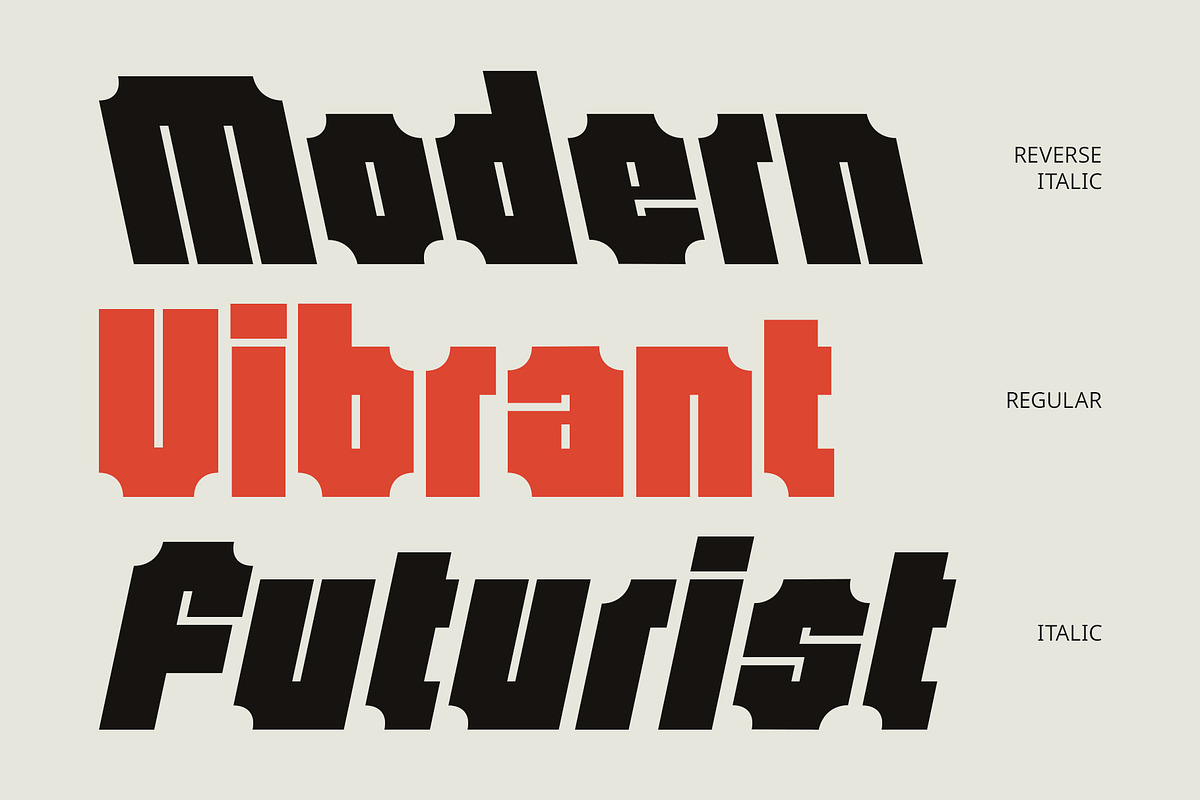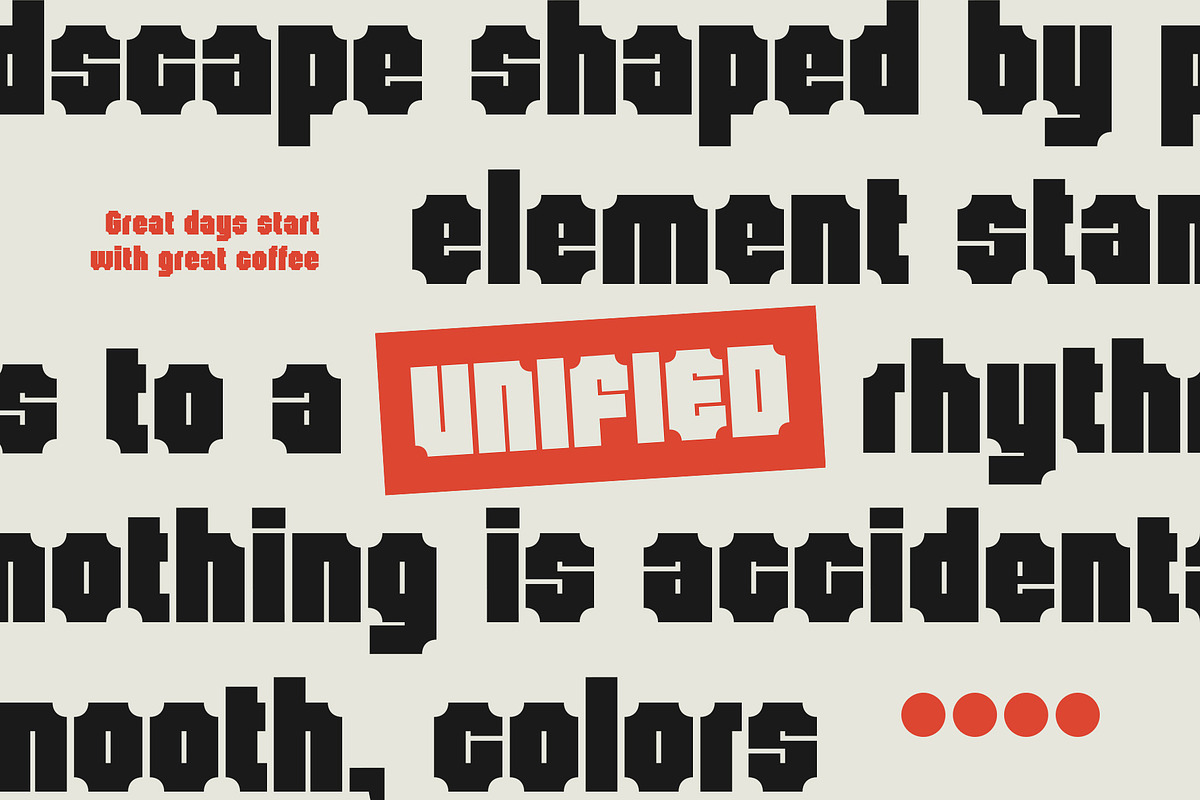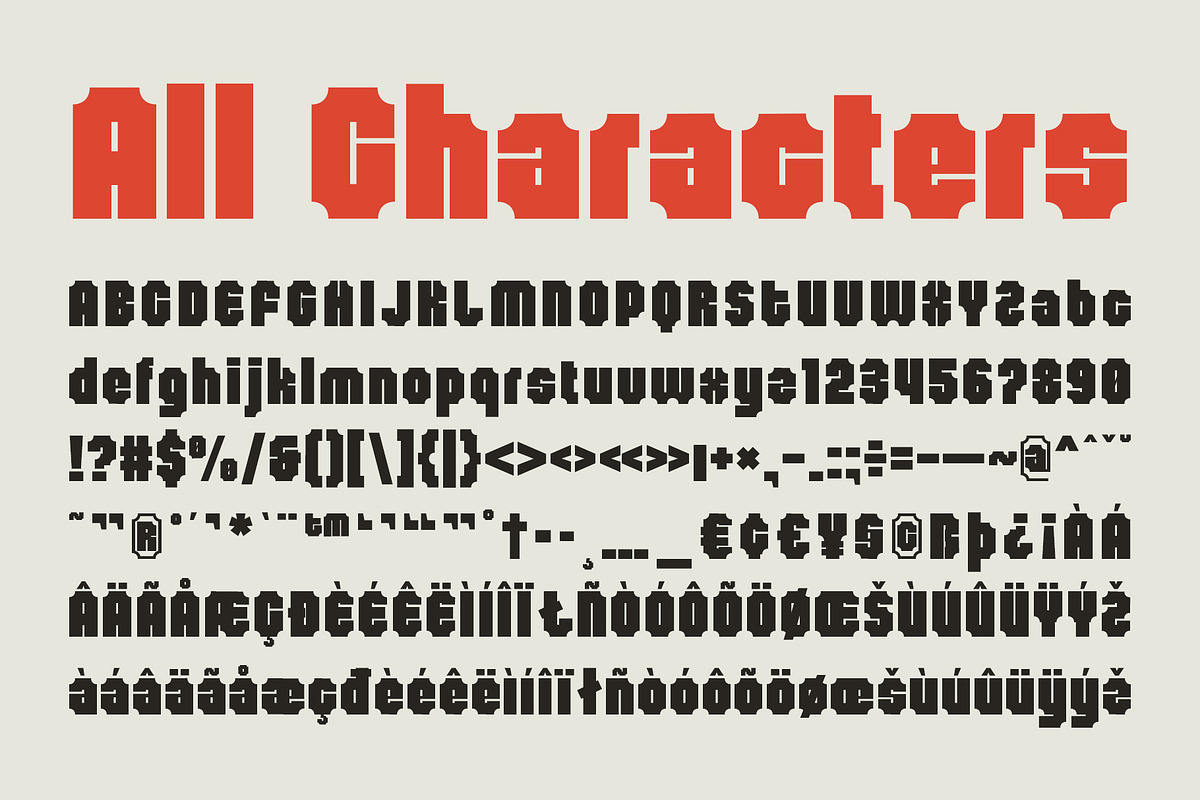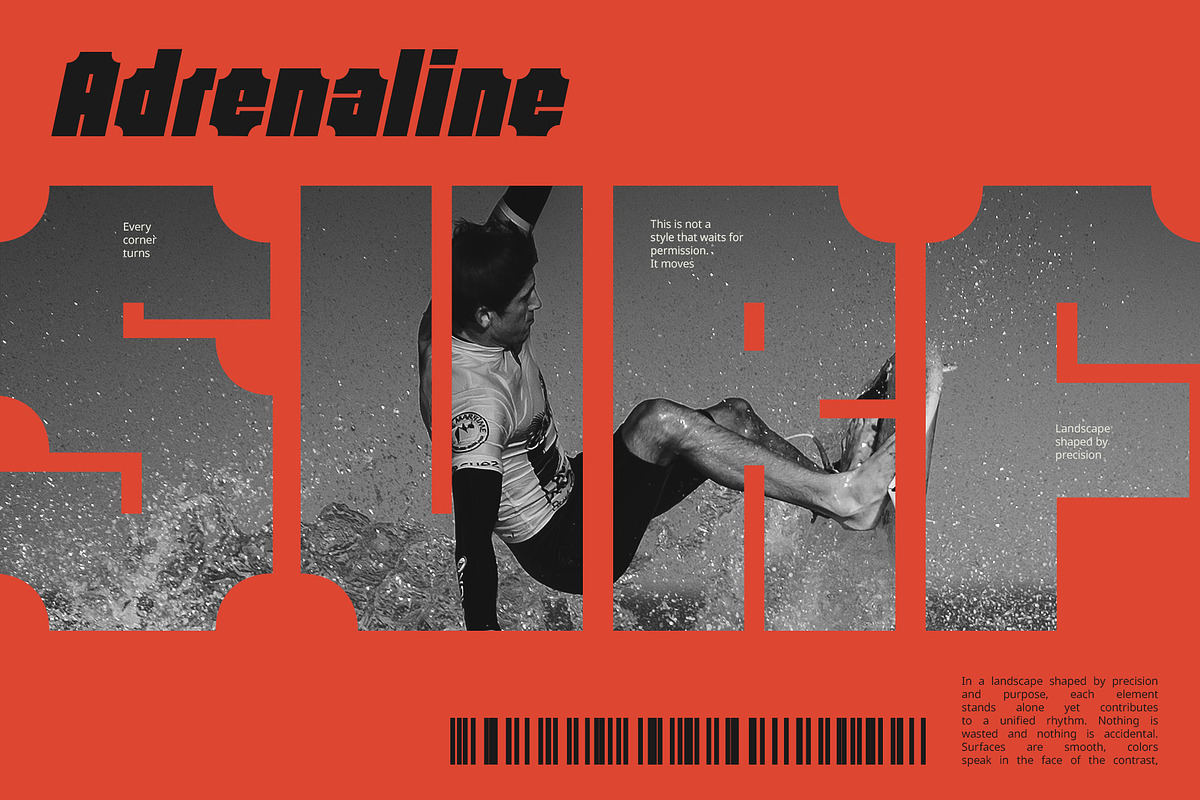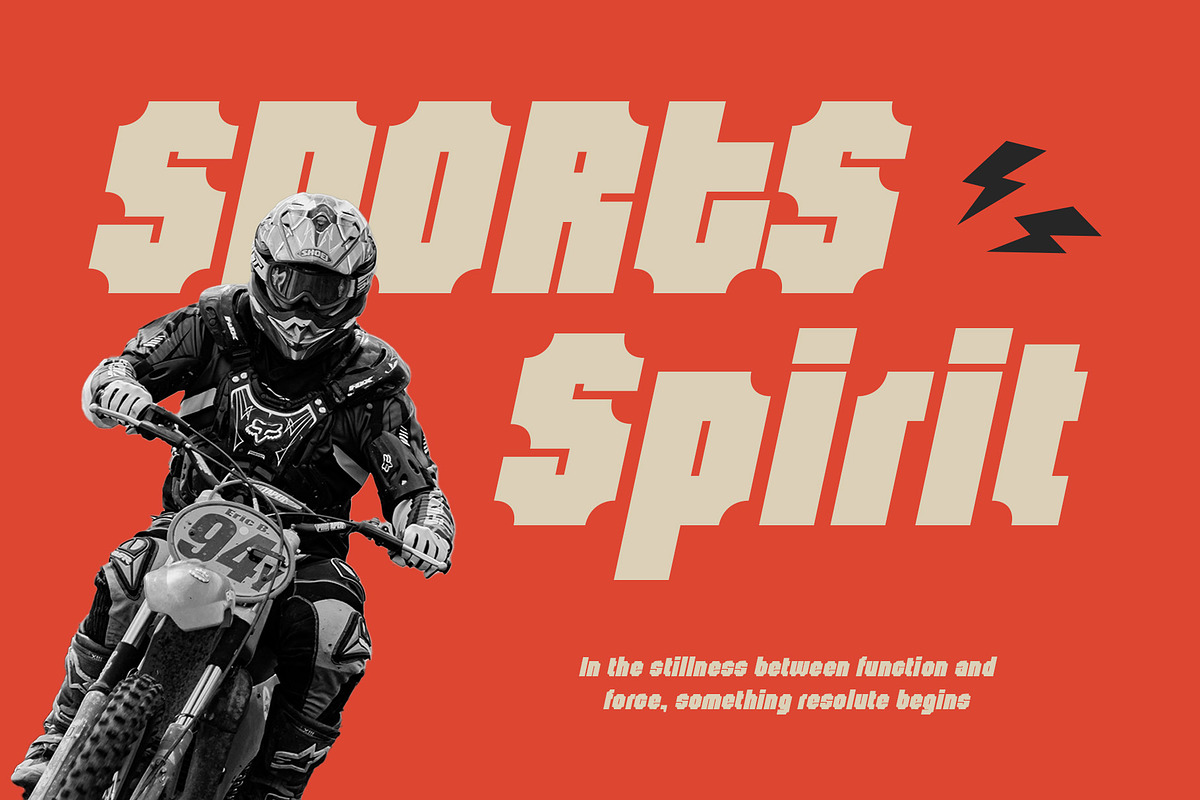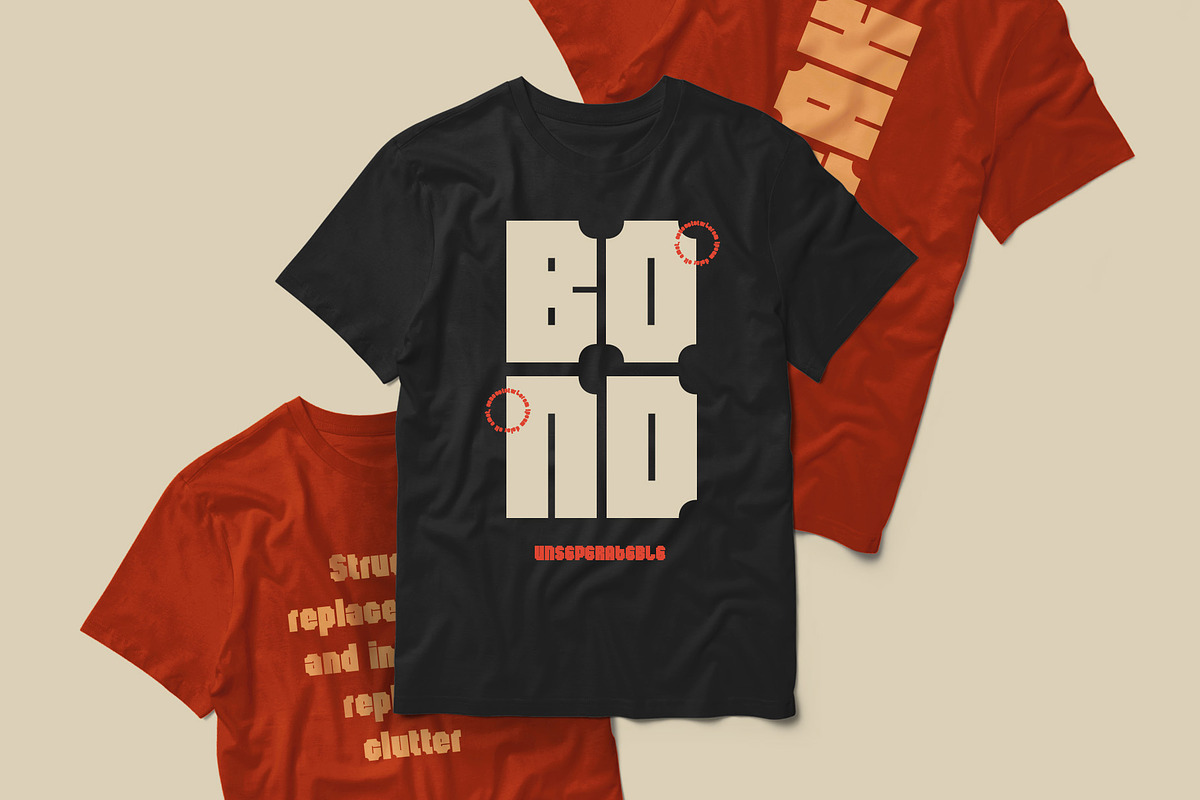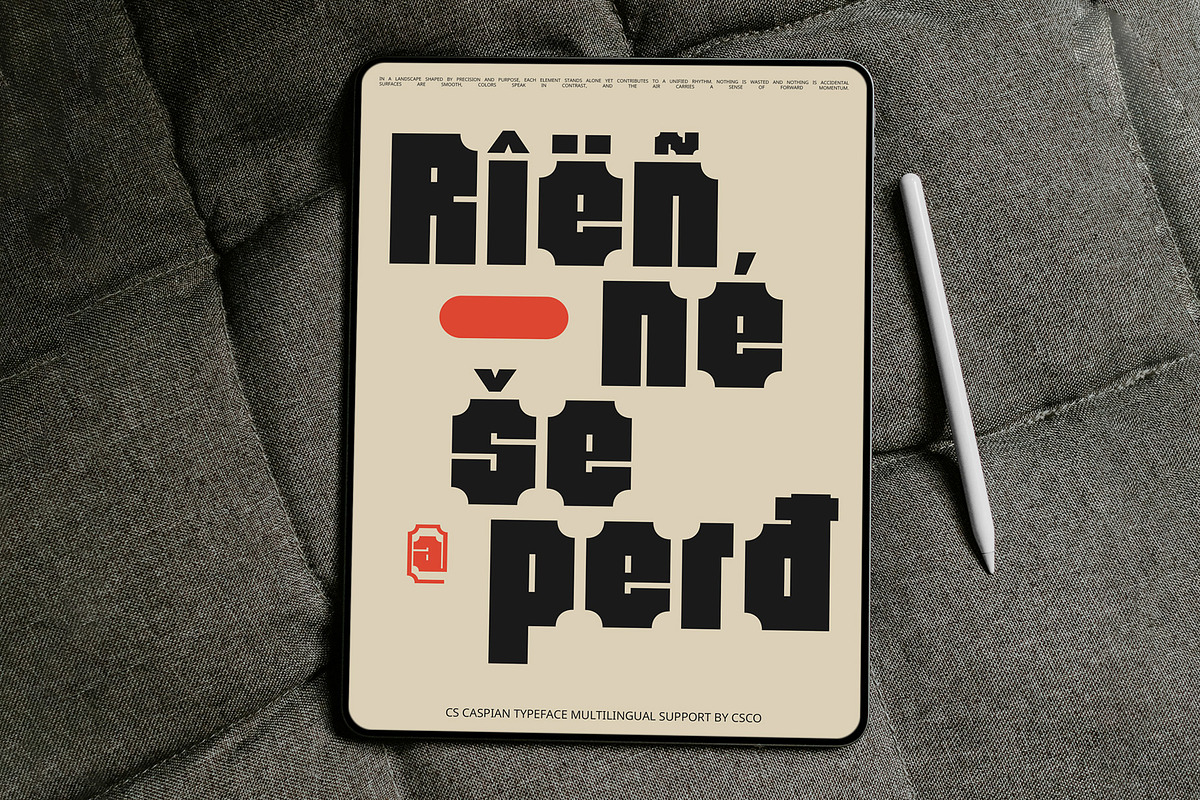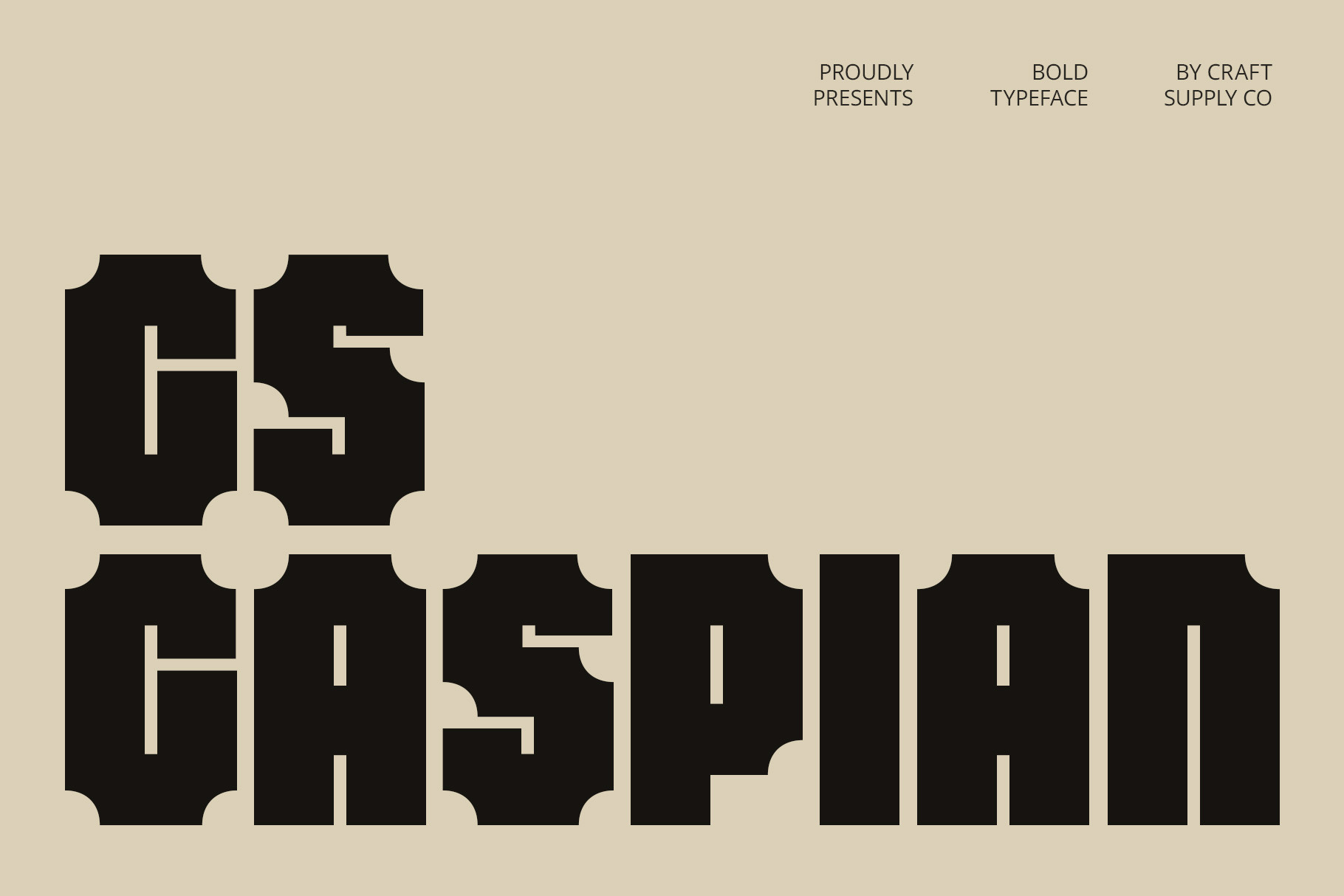
CS Caspian – Industrial Font
CS Caspian – Industrial Font: Where Strength Meets Precision
Bold Industrial Form with a Clean Modern Edge CS Caspian is a modern display sans serif font that embodies strength and clarity through its bold, industrial-inspired letterforms. Built with clean lines and solid shapes, this typeface projects power and efficiency—making it ideal for contemporary visual communication that demands attention and professionalism.
Confident Structure for Maximum Impact Designed with a focus on minimalism and function, CS Caspian offers a confident visual presence. Its firm geometry and balanced proportions create a grounded and commanding aesthetic that works well in both digital and print formats. This design approach makes it particularly effective for large headlines and impactful messaging.
Perfect for Tech, Corporate, and Industrial Applications Whether you’re designing for tech startups, engineering firms, or product-based businesses, CS Caspian brings a sense of innovation and structure. It’s a go-to font for corporate branding, professional posters, user interface displays, and industrial packaging, delivering a crisp, assertive voice.
Versatile and Built for Bold Design Statements CS Caspian’s clean and bold style is highly adaptable. Use it to create modern logos, marketing materials, or editorial layouts that require a visual punch without sacrificing clarity. Its industrial roots give it a rugged appeal, while its polished execution ensures it remains sharp and on-trend.